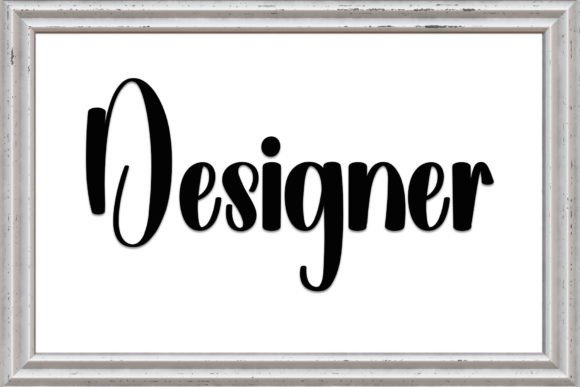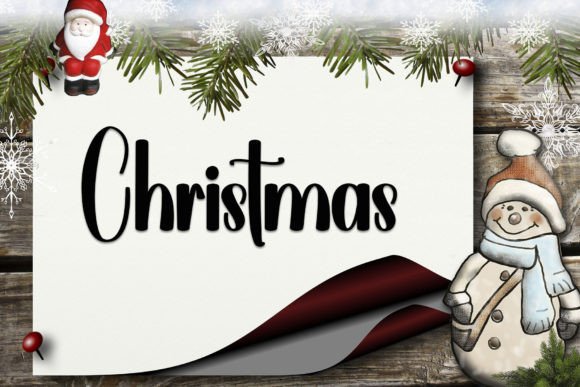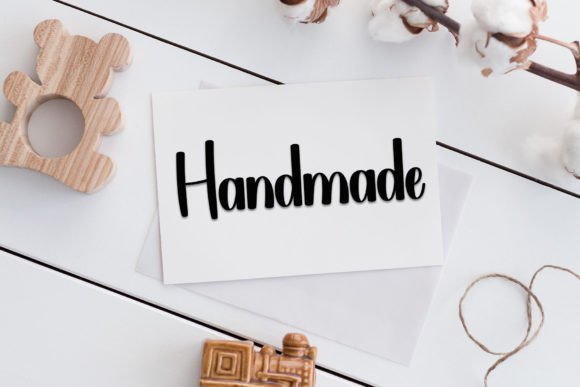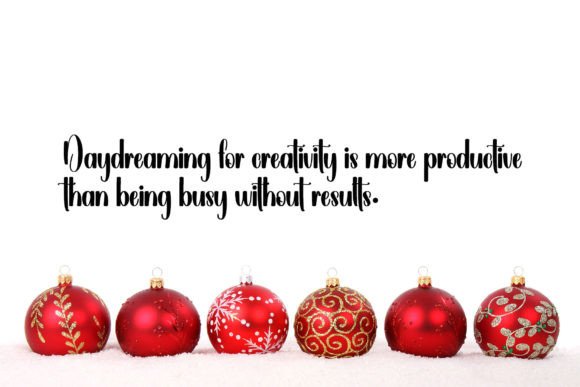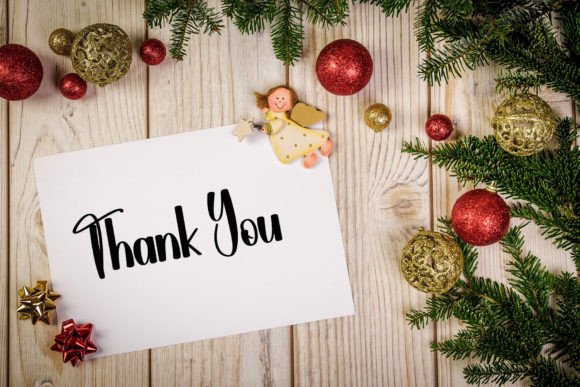
Baby Birthday Font: Elevate Your Designs with Elegance and Class
Are you a designer or crafter looking for a font that exudes elegance and sophistication? Look no further than the Baby Birthday Font. This trendy handwritten font is inspired by timeless classic calligraphy and is sure to add a touch of class to any design project. In this article, we’ll dive into the features and benefits of the Baby Birthday Font and explore how it can elevate your designs.
What is Baby Birthday Font?
Baby Birthday Font is a modern handwritten font that boasts a contemporary atmosphere and impeccable form. Its unique design is inspired by traditional calligraphy, giving it a classic and sophisticated feel. The font is perfect for designers and crafters who want to add a touch of elegance to their projects.
Key Features of Baby Birthday Font
• Trendy and Modern: Baby Birthday Font has a fresh and modern look that’s perfect for contemporary designs.
• Handwritten Style: The font’s handwritten style gives it a personal and unique touch.
• Inspired by Classic Calligraphy: The font’s classic calligraphy inspiration gives it a timeless and sophisticated feel.
• Elegant and Classy: Baby Birthday Font is perfect for designs that require an elegant and classy touch.
Benefits of Using Baby Birthday Font
So, why should you choose Baby Birthday Font for your design projects? Here are just a few benefits:
• Adds Elegance and Class: Baby Birthday Font is designed to add elegance and class to any design project.
• Versatile: The font is versatile and can be used for a wide range of design projects, from wedding invitations to branding and packaging.
• Easy to Read: The font is easy to read, making it perfect for designs that require a clear and concise message.
• Unique and Personal: The font’s handwritten style gives it a unique and personal touch that’s sure to make your designs stand out.
How to Use Baby Birthday Font
Using Baby Birthday Font is easy. Here are a few tips to get you started:
• Pair it with Other Fonts: Pair Baby Birthday Font with other fonts to create a unique and interesting design.
• Use it for Headings and Titles: The font is perfect for headings and titles, where you want to make a statement.
• Add it to Your Branding: Use Baby Birthday Font as part of your branding to add a touch of elegance and sophistication.
Design Ideas Using Baby Birthday Font
• Wedding Invitations: Use Baby Birthday Font to create beautiful and elegant wedding invitations.
• Branding and Packaging: Add a touch of elegance to your branding and packaging with Baby Birthday Font.
• Birthday Cards: Create personalized birthday cards with Baby Birthday Font.
• Signage: Use Baby Birthday Font for signage, such as welcome signs and directional signs.
In conclusion, Baby Birthday Font is a trendy handwritten font that’s perfect for designers and crafters looking to add elegance and class to their design projects. Its unique design, inspired by timeless classic calligraphy, makes it a versatile and elegant choice for a wide range of design projects. With its ease of use and versatility, Baby Birthday Font is sure to become a favorite in your design arsenal.